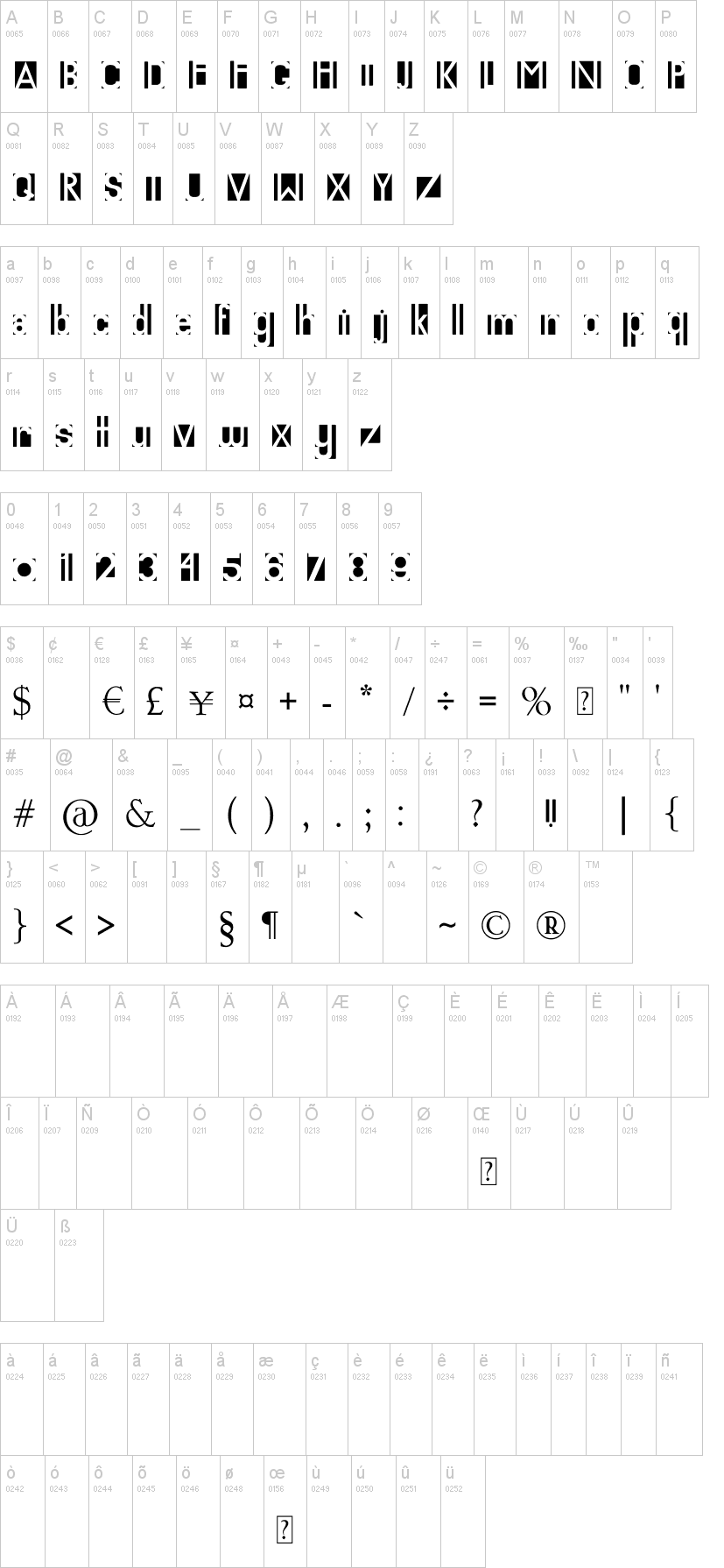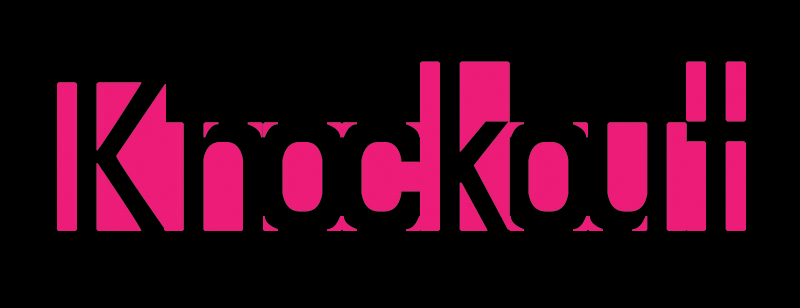
Шрифт Knockout
Knockout is a font created for Andrew Byrom's advanced typography class at Cal State Long Beach. These were originally to be building numbers and then expanded to an entire alphabet. The font is inspired stencils and looks best in bright colors.